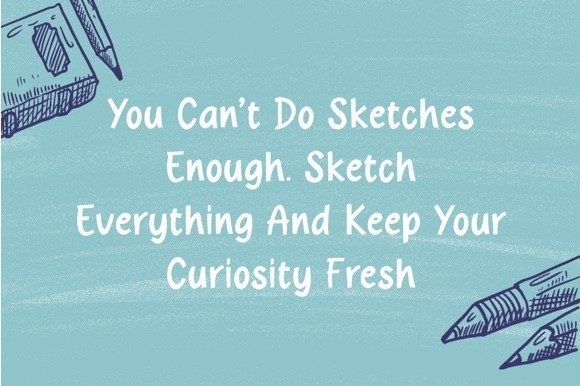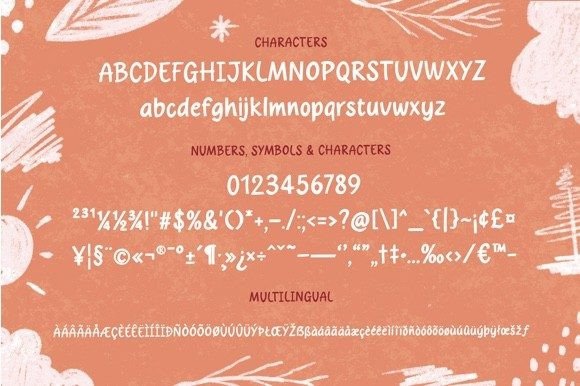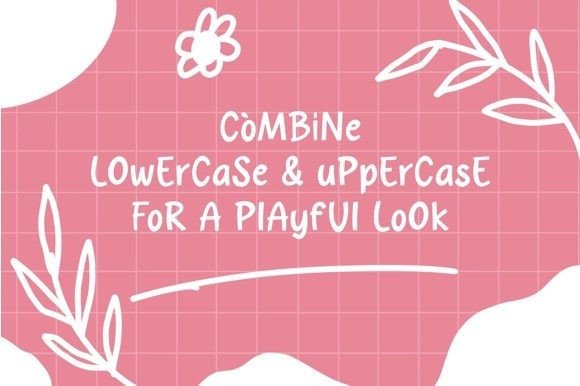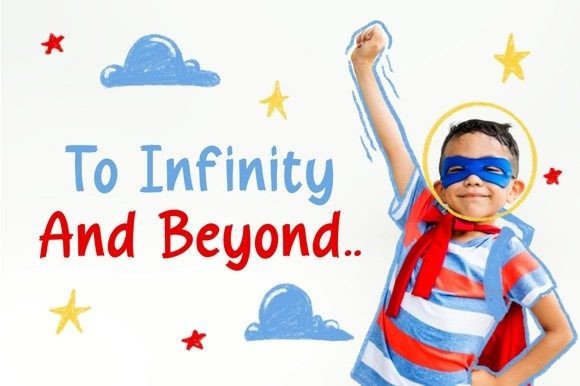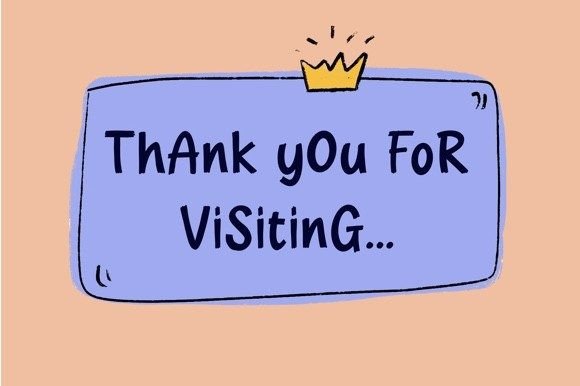
Introduction to Sketchness Font
Sketchness is a handwritten font with a doodle feel.
Whether you are using it for children-related projects, quotes, titles, brand names, book covers, posters, or just any creation, Sketchness will turn any creative idea into a true piece of art .
Key Features of Sketchness Font